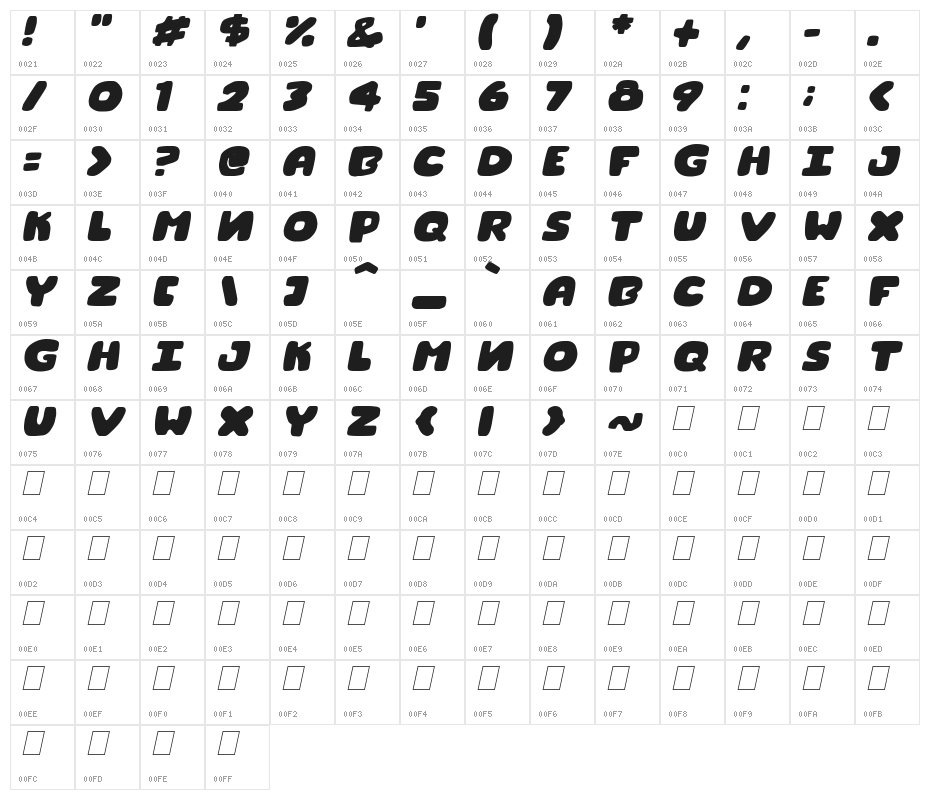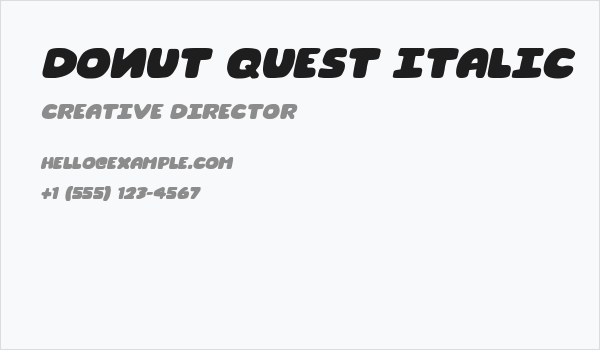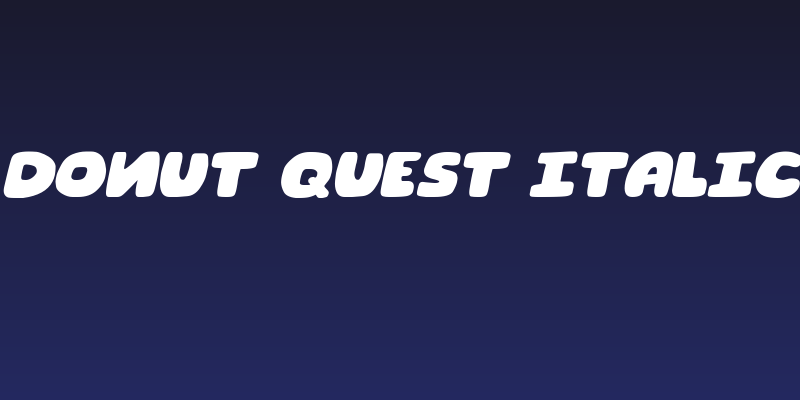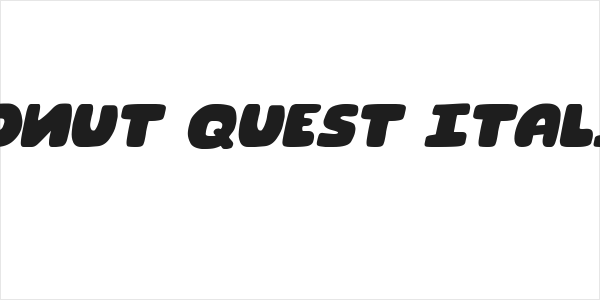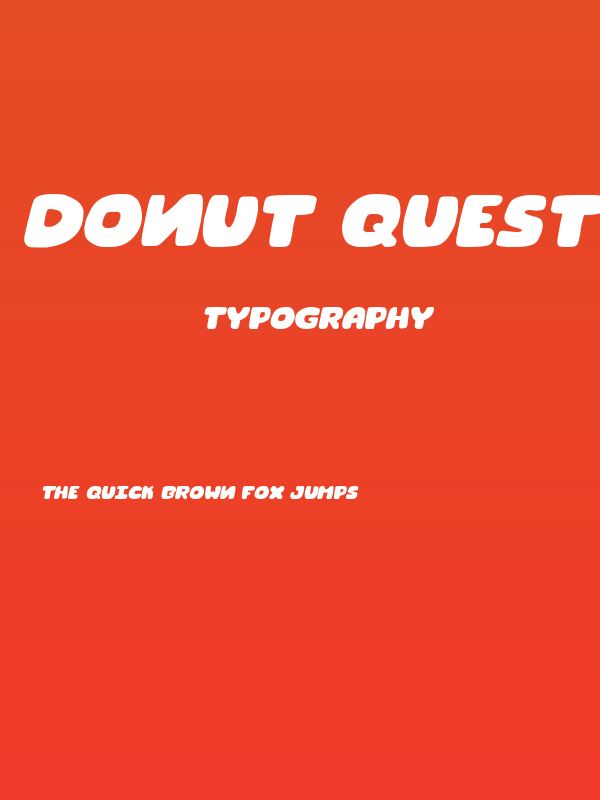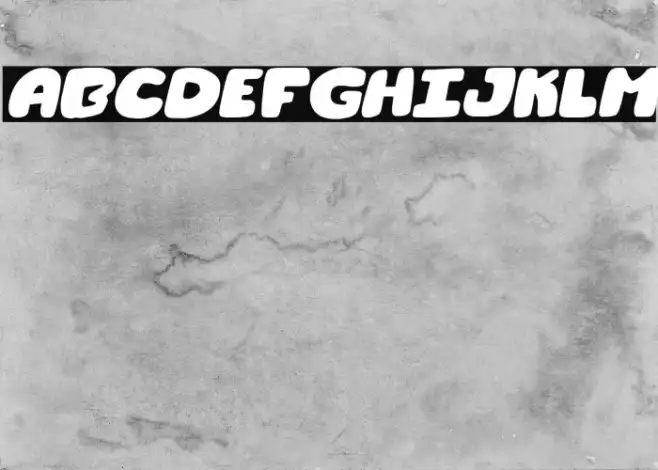
Donut Quest Italic Font
Donut Quest Italic Description
This playful and bold font features rounded, thick strokes that give it a soft and approachable appearance. The characters are slightly slanted, adding a dynamic and energetic feel. Its bold weight and rounded edges make it highly legible, even at smaller sizes. The font's whimsical style is reminiscent of hand-drawn lettering, making it suitable for projects that require a fun and informal touch. The character spacing is normal, ensuring readability while maintaining its playful aesthetic. The font's overall style is modern with a touch of retro charm, making it versatile for various creative applications.
| Proposed Projects | Ideal for children's books, playful branding, posters, and social media graphics. |